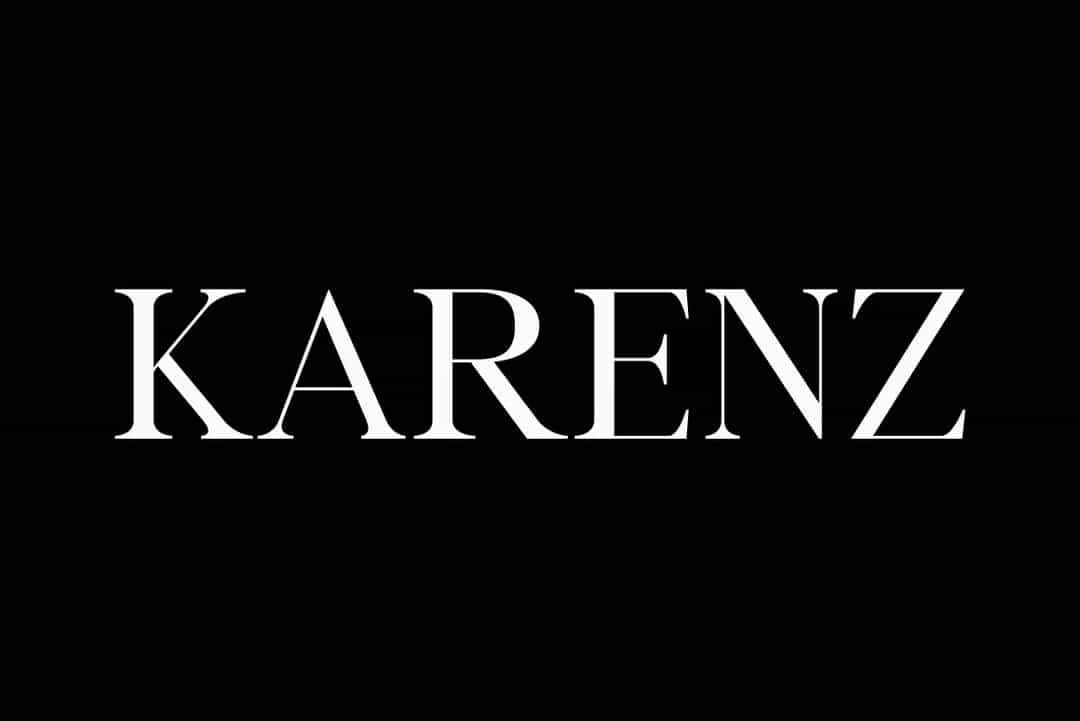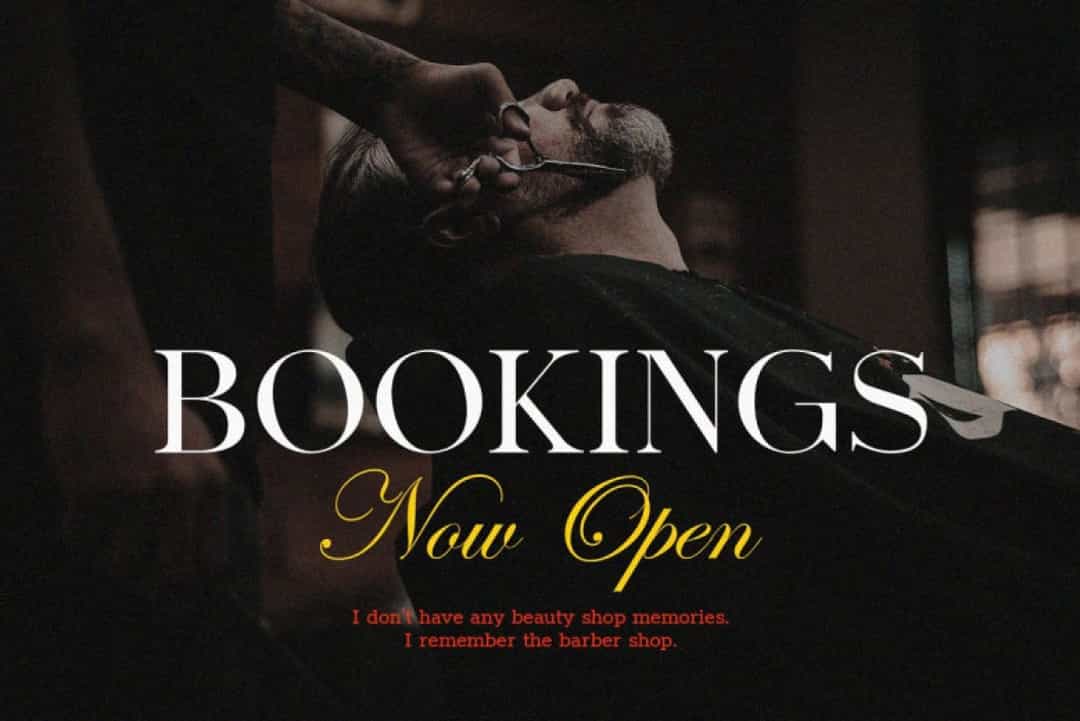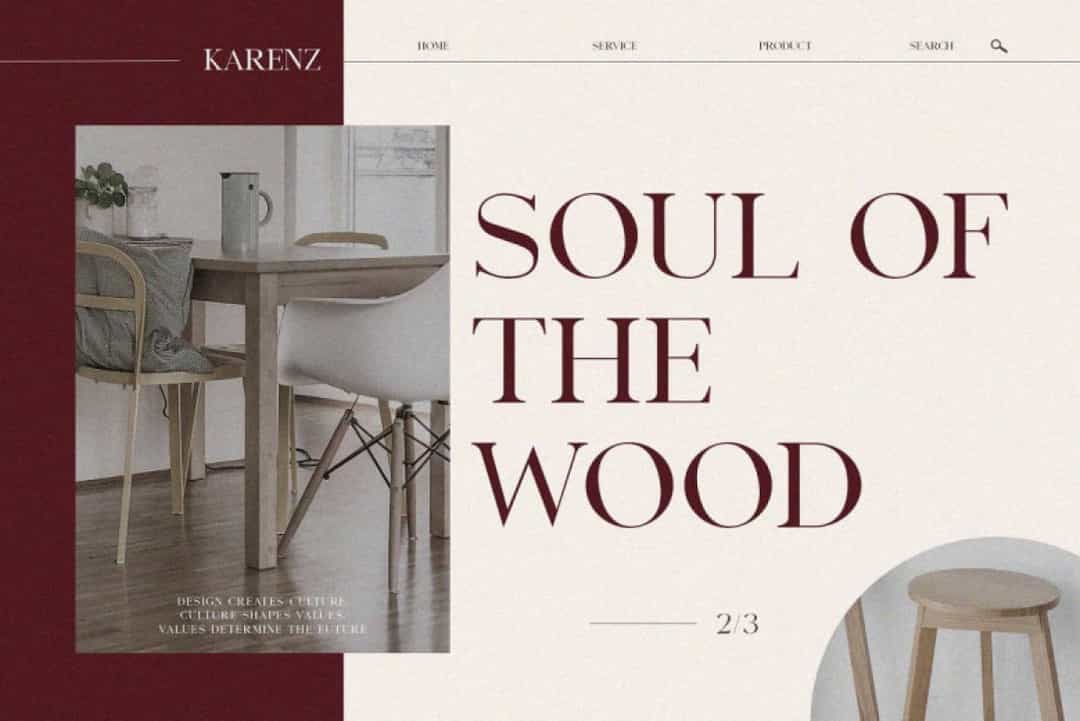
The Karenz Serif Font offers an elegant and contemporary aesthetic that makes an impactful statement about you or your brand. Perfect for titles and subtitles; also useful if creating advertisements across social media; gives contemporary impression.